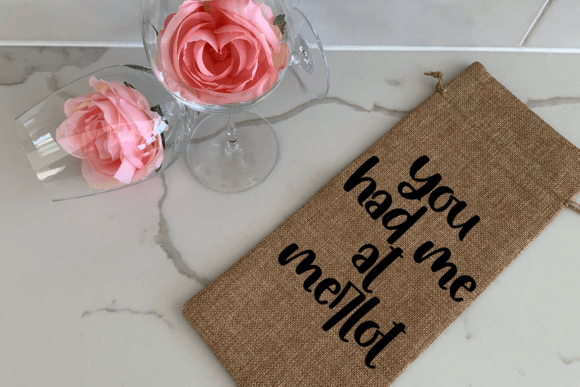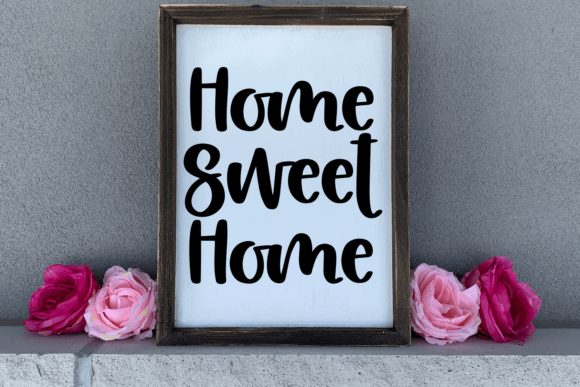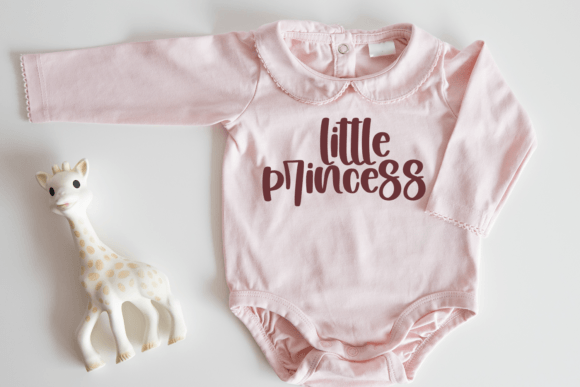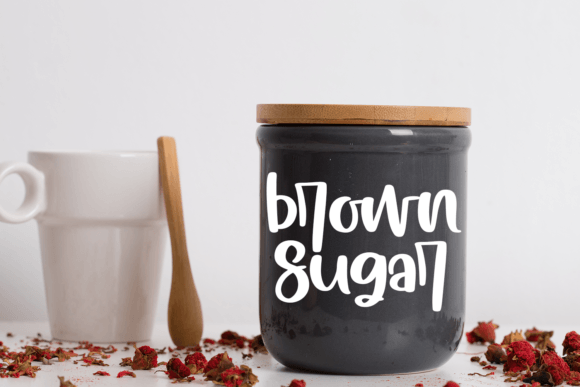
Introducing Farmhouse Flowers: The Quirky Handcrafted Typeface You Need
Are you a designer, crafter, or DIY enthusiast looking for a unique and charming font to elevate your projects? Look no further than Farmhouse Flowers, a quirky handcrafted typeface that’s perfect for adding a personal touch to your creations. In this article, we’ll explore the features and benefits of Farmhouse Flowers and show you how it can be used to take your designs to the next level.
What is Farmhouse Flowers?
Farmhouse Flowers is a one-of-a-kind, handcrafted typeface that’s been carefully designed to bring a touch of whimsy and charm to your projects. With its delicate, handwritten appeal, this font is perfect for designers and crafters who want to add a personal touch to their work. Whether you’re creating artisanal projects, designing logos and branding materials, or crafting digital planners and apps, Farmhouse Flowers is the perfect choice.
Perfect for Artisanal Projects
If you’re a Cricut or Silhouette machine user, you’ll love Farmhouse Flowers. This font is specifically designed to work seamlessly with these machines, making it easy to create custom vinyl signs, iron-on designs, and more. With Farmhouse Flowers, you can add a personal touch to your artisanal projects and make them stand out from the crowd.
Enhance Your SVG Design Business
Are you an SVG designer looking for a unique font to offer your clients? Farmhouse Flowers is the perfect choice. With its delicate, handwritten appeal, this font can be used to create custom logos, branding materials, and more. Whether you’re designing for clients or creating your own products, Farmhouse Flowers is a versatile font that can be used in a variety of applications.
Distinctive Logos and Branding Efforts
Your logo and branding materials are essential to establishing your identity and attracting customers. With Farmhouse Flowers, you can create distinctive logos and branding materials that reflect your personality and style. This font is perfect for businesses that want to stand out from the crowd and establish a unique identity.
Digital Planner Designs and Apps
If you’re designing digital planners or apps, Farmhouse Flowers is a great choice. This font can be used to create custom headers, titles, and other design elements that add a personal touch to your digital products. Whether you’re designing for Goodnotes or other digital planning apps, Farmhouse Flowers is a versatile font that can be used to create beautiful and functional designs.
Website and Blog Designs
Want to add a personal touch to your website or blog? Farmhouse Flowers is a great choice for website and blog designs. This font can be used to create custom headers, titles, and other design elements that reflect your personality and style. Whether you’re designing a website or blog, Farmhouse Flowers is a versatile font that can be used to create beautiful and engaging designs.
Sleek Print Designs
Farmhouse Flowers is not just limited to digital designs. This font can also be used to create sleek print designs, such as magazines, flyers, and more. With its delicate, handwritten appeal, Farmhouse Flowers can add a touch of elegance and sophistication to your print designs.
Header Elements and Motivational Quote Graphics
Header elements and motivational quote graphics are a great way to add a personal touch to your designs. With Farmhouse Flowers, you can create custom headers and quote graphics that reflect your personality and style. This font is perfect for designers who want to create inspiring and motivational content for social media.
Delicate Graphic Designs for Women’s T-Shirts and Clothing
Farmhouse Flowers is a great choice for designers who want to create delicate graphic designs for women’s t-shirts and clothing. This font can be used to create custom designs that are both feminine and stylish. Whether you’re designing for yourself or for clients, Farmhouse Flowers is a versatile font that can be used to create beautiful and unique designs.
| Font Name | Farmhouse Flowers Font |
In conclusion, Farmhouse Flowers is a quirky handcrafted typeface that’s perfect for designers, crafters, and DIY enthusiasts. With its delicate, handwritten appeal, this font can be used to create a wide range of designs, from artisanal projects to digital planners and apps. Whether you’re looking for a unique font to enhance your SVG design business or to add a personal touch to your website or blog, Farmhouse Flowers is the perfect choice.